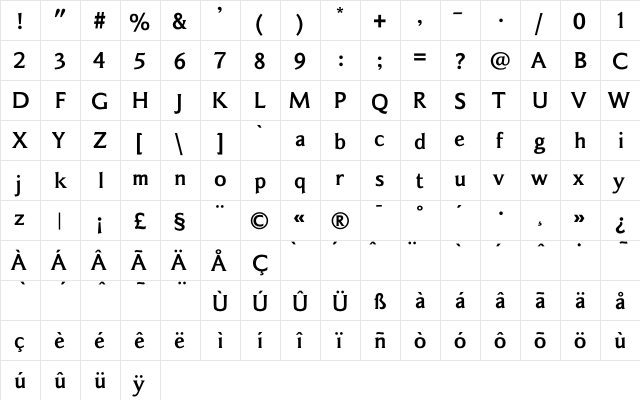
SainsburyBold Regular Font Preview
SainsburyBold Regular
Design Context for SainsburyBold Typeface
SainsburyBold is a composed and adaptable typeface that performs quietly and consistently across a wide range of design contexts. Its bold stroke weight gives it real presence on the page.